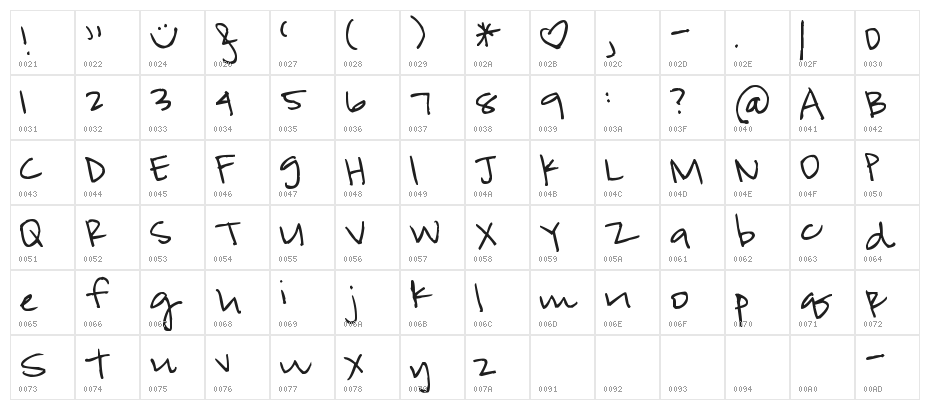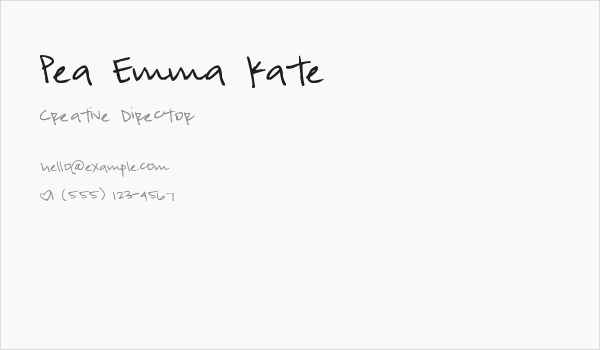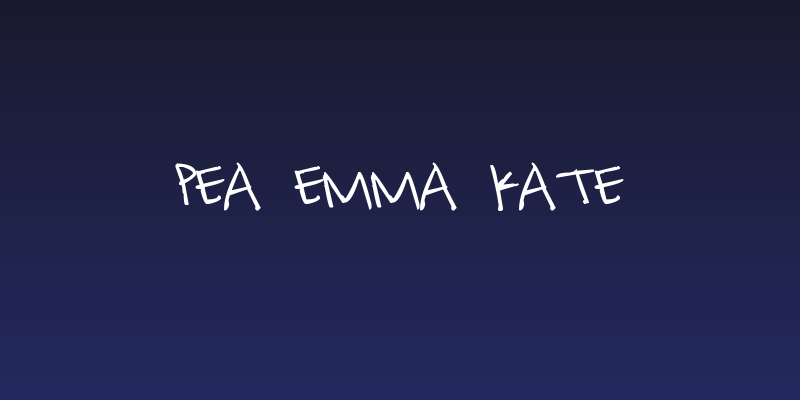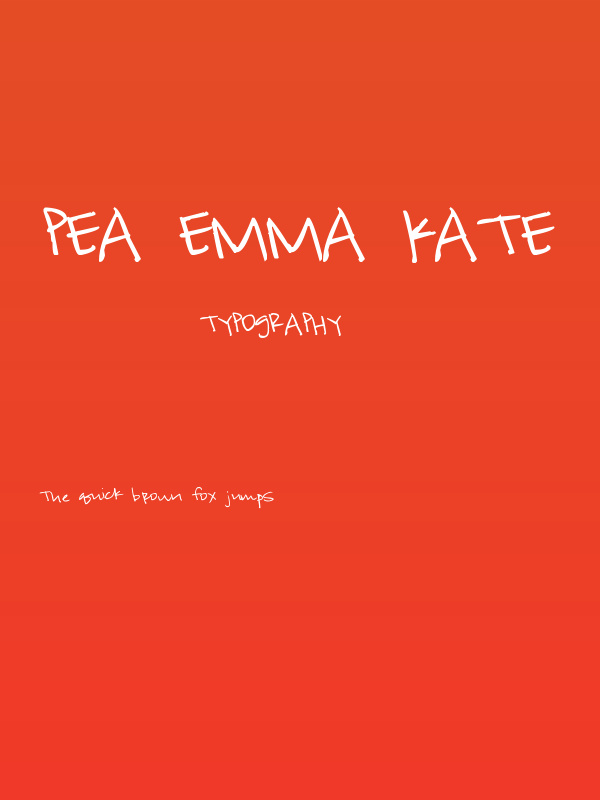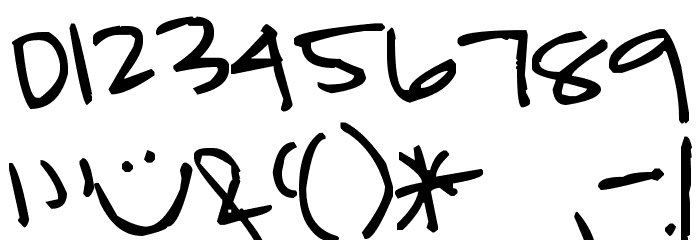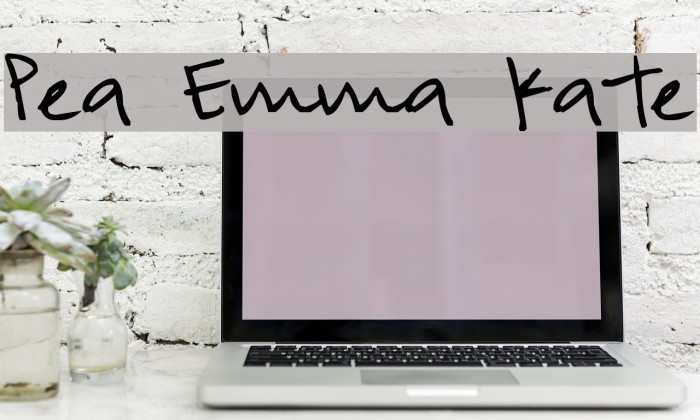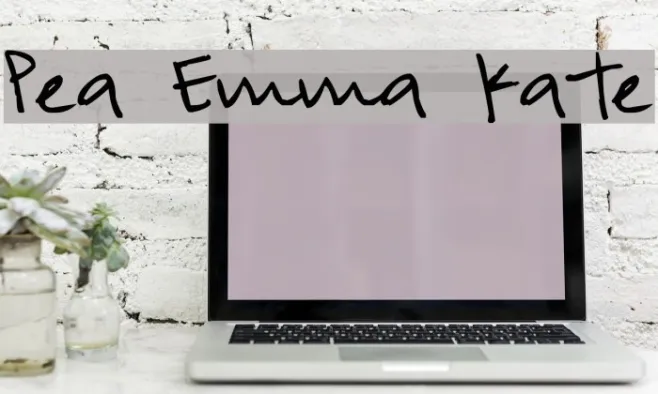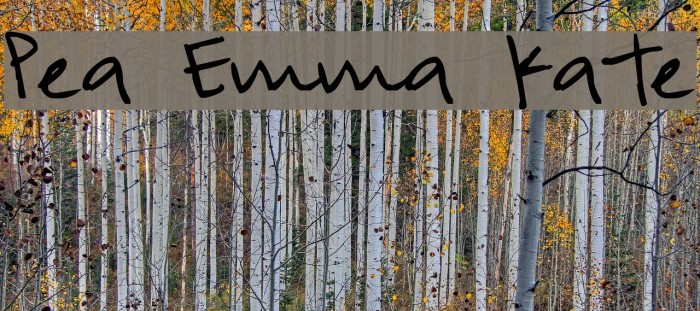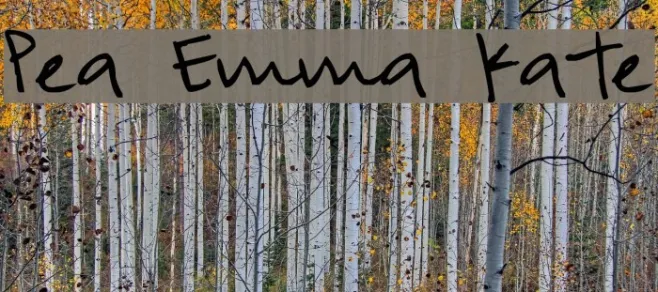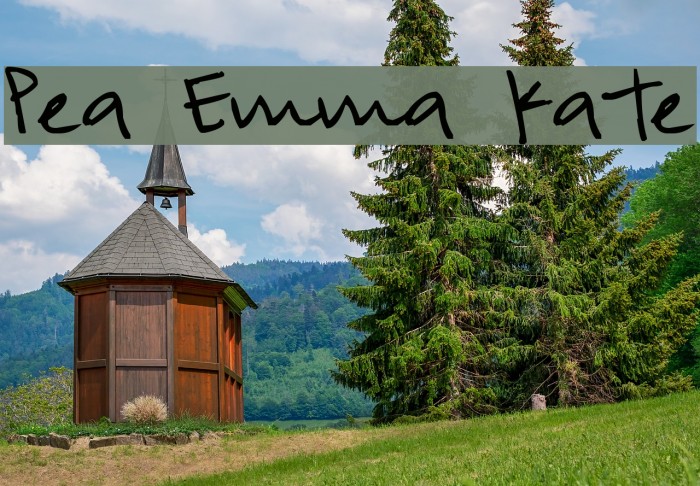
Pea Emma Kate Font
Pea Emma Kate Description
This font exhibits a playful and casual handwritten style, characterized by its loose and informal strokes. The letters are slightly slanted, giving it a dynamic and lively appearance. The uppercase and lowercase letters maintain a consistent flow, with rounded edges and varying stroke widths that add to its charm. The numbers and special characters follow the same whimsical style, making it suitable for projects that require a personal touch. The overall look is approachable and friendly, ideal for creative and informal applications.
| Overall Style | Casual |
| Use Case | Logos, Invitations, Personal notes |
| Proposed Projects | Ideal for greeting cards, personal notes, children's books, and creative branding. |